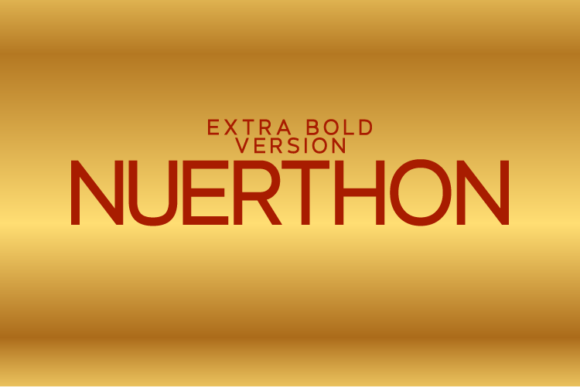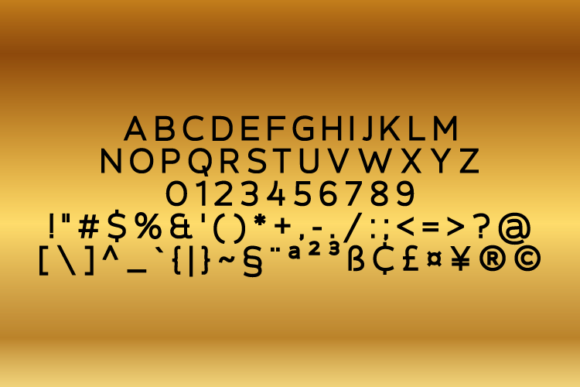
HomeSans Serif FontsNuerthon Extra Bold Font Sans Serif Fonts Nuerthon Extra Bold Font FacebookXPinterestWhatsApp Nuerthon Extra Bold Font 1 of 2 About Nuerthon Extra Bold Font Nuerthon is a modern and sophisticated sans serif font with an undeniably clean feel. With its neat and beautiful arrangement of letters, this typeface will look outstanding in both formal and non-formal designs. DOWNLOAD ON CREATIVE FABRICAThis font is sold and delivered by Creative Fabrica. Font Canyon may earn a commission if you buy through this link. People also explored Hello December Font Hello Summer Font Brush Poster Grotesk Extras Font Hello Rasti Font Book Signature Font Alisteria Font Zahlenia Font Hellington Font Adenia Script Font 536 0 TagsNuerthon Extra Bold Font Previous articleNuerthon Black FontNext articleNuerthon Bold Font LEAVE A REPLY Cancel reply Comment: Please enter your comment! Name:* Please enter your name here Email:* You have entered an incorrect email address! Please enter your email address here Website: Save my name, email, and website in this browser for the next time I comment. Personal Use Free Gaboed Personal Use Free Read more about this font Manhattan Personal Use Free Read more about this font Carrolina Personal Use Free Read more about this font Kaysan Personal Use Free Read more about this font BLOG How to Install and Use Fonts on Windows, macOS, and Web Projects How to Install and Use Fonts on Windows, macOS, and Web Projects Fonts are a crucial part of design and branding. Whether you’re designing a... The 10 Best Handwriting Fonts to Add Personality to Your Designs Elegant Wedding Invitation Fonts – Handwritten & Script Fonts Modern Sans-Serif Fonts That Brands Love in 2025